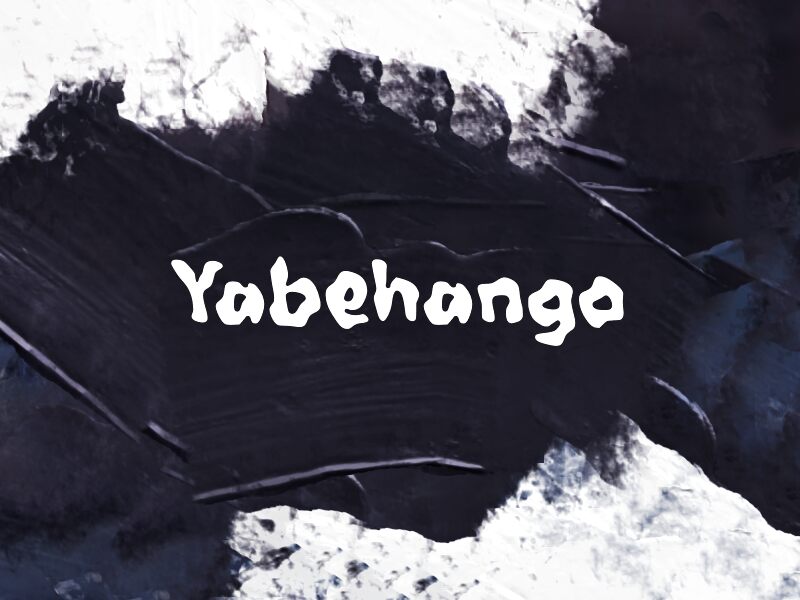
Yabehango by Wep is a free distorted blob display font with a loose, hand-molded feel. The letters swell and wobble like soft cutout shapes, with rounded joins, uneven heft, and little pinched notches that keep the playful rhythm from turning slick.
It works well for poster headlines, zine covers, packaging, music artwork, and playful brand marks where a free font can bring in a strange, gummy voice. Because the forms feel pushed and pulled by hand, Yabehango suits short titles, bold cover lines, and logo-style words that want character before polish.
Yabehango